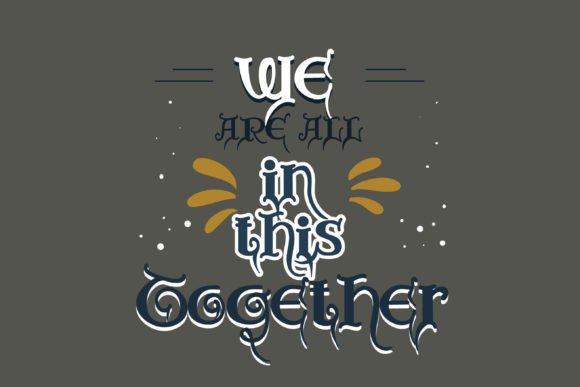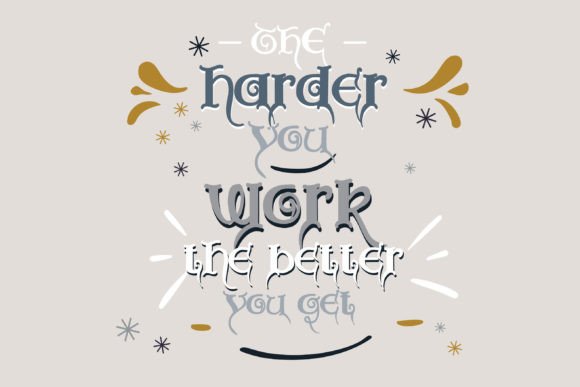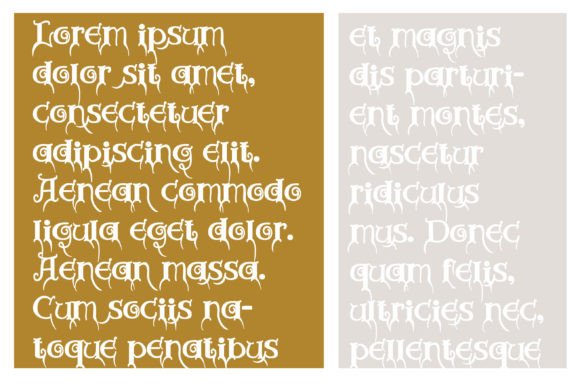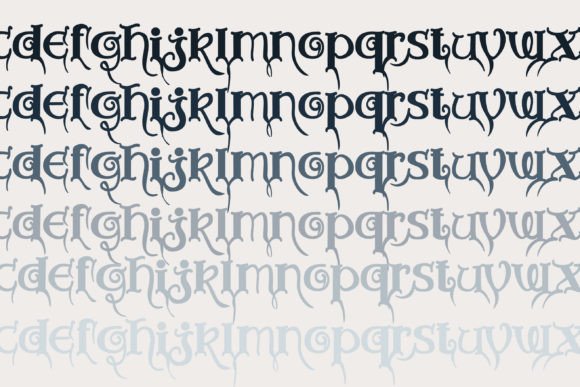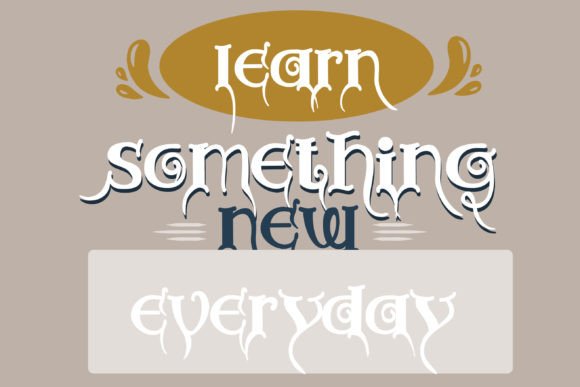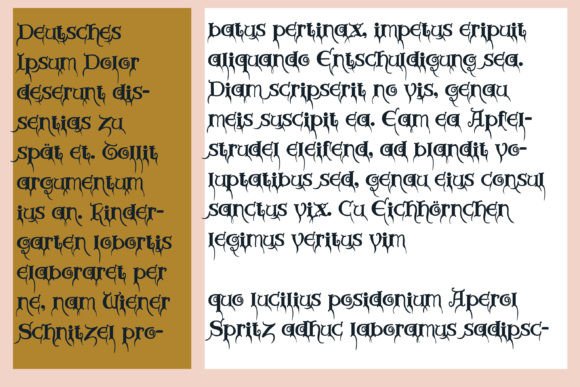
Evil Lord Tibur Font: A Hauntingly Beautiful Hand-Crafted Typeface
Are you a designer or crafter looking for a unique and captivating font to add a touch of eeriness to your projects? Look no further than the Evil Lord Tibur Font, a hand-crafted typeface that exudes an old-school German influence with a haunted twist. In this article, we’ll dive into the world of this fascinating font, exploring its features, uses, and benefits for creatives.
A hand-crafted font, also known as a handwritten font, is a typeface designed to mimic the look and feel of handwriting. Unlike traditional fonts, which are created using digital tools, hand-crafted fonts are carefully crafted to replicate the imperfections and nuances of handwritten text. This results in a unique, organic, and often charming aesthetic that’s perfect for a variety of applications.
Hand-crafted fonts like Evil Lord Tibur can be either formal or informal, making them versatile and suitable for different purposes. From elegant invitations and greeting cards to spooky Halloween decorations and haunted house signs, the possibilities are endless.
Introducing Evil Lord Tibur Font
Evil Lord Tibur Font is a one-of-a-kind, hand-crafted typeface that embodies the spirit of old-school German design with a haunting twist. This font is perfect for creatives who want to add a touch of darkness and mystery to their projects. With its bold and condensed versions, Evil Lord Tibur is ideal for creating eye-catching titles, headings, and text elements that demand attention.
As a hand-crafted font, Evil Lord Tibur boasts a distinctive, hand-written look that’s both eerie and captivating. Its characters are carefully designed to resemble handwritten text, complete with subtle imperfections and variations that give it a unique, organic feel.
Features and Benefits of Evil Lord Tibur Font
So, what makes Evil Lord Tibur Font so special? Here are some of its key features and benefits:
- Hand-crafted design: Evil Lord Tibur is a meticulously crafted font that looks like it was written by hand, giving it a unique and charming aesthetic.
- Old-school German influence: This font is heavily influenced by traditional German design, adding a touch of nostalgia and authenticity to your projects.
- Haunted twist: With its bold and condensed versions, Evil Lord Tibur has a distinctly eerie feel that’s perfect for spooky or haunted-themed projects.
- Versatile: This font can be used for a wide range of applications, from invitations and greeting cards to posters, signs, and digital graphics.
Using Evil Lord Tibur Font in Your Projects
So, how can you use Evil Lord Tibur Font in your designs? Here are some ideas to get you started:
- Halloween decorations: Create spooky signs, invitations, and decorations for Halloween parties or haunted house events.
- Invitations and greeting cards: Add a touch of elegance and sophistication to your invitations and greeting cards with Evil Lord Tibur’s bold and condensed versions.
- Posters and flyers: Use Evil Lord Tibur to create eye-catching posters and flyers for events, products, or services with a haunted or mysterious theme.
- Digital graphics: Incorporate Evil Lord Tibur into your digital graphics, such as social media posts, blog headers, or website designs, to add a unique and captivating touch.
In conclusion, Evil Lord Tibur Font is a unique and captivating hand-crafted typeface that’s perfect for designers and crafters looking to add a touch of eeriness and mystery to their projects. With its bold and condensed versions, old-school German influence, and haunted twist, this font is sure to make your designs stand out. Whether you’re creating invitations, posters, or digital graphics, Evil Lord Tibur Font is a versatile and easy-to-use solution that’s sure to delight.